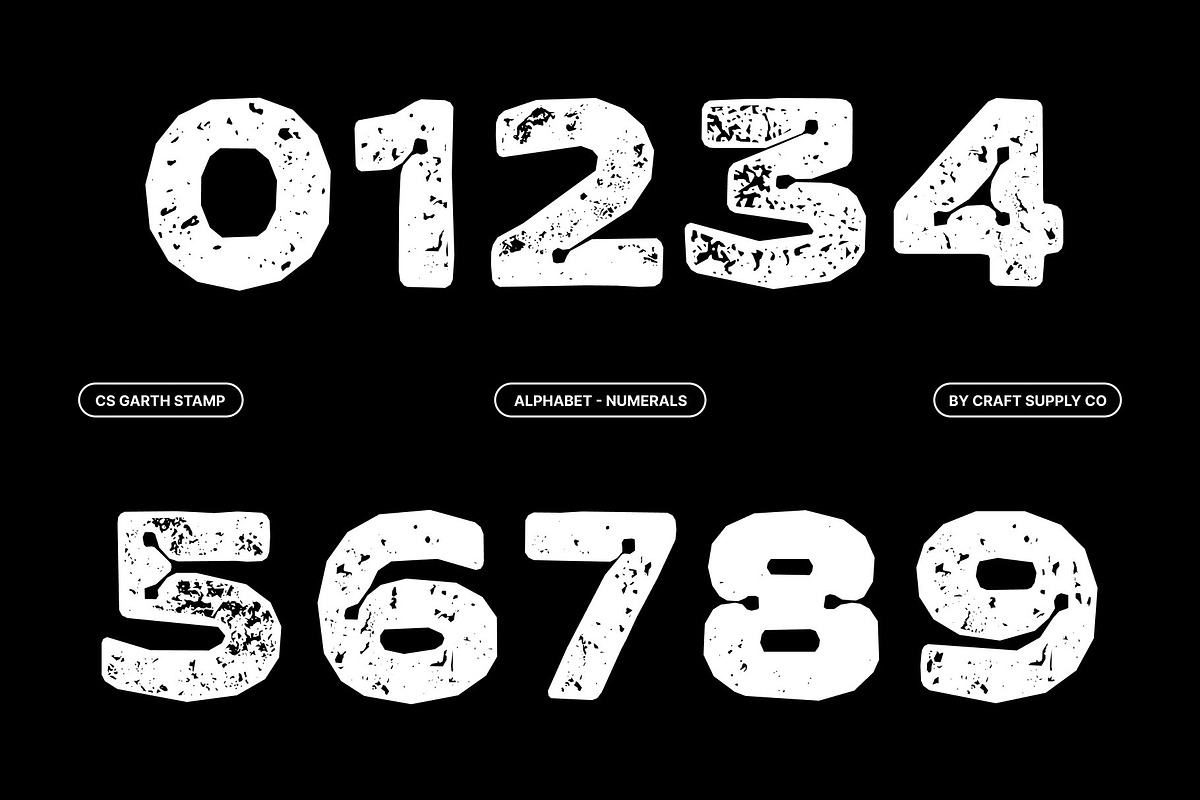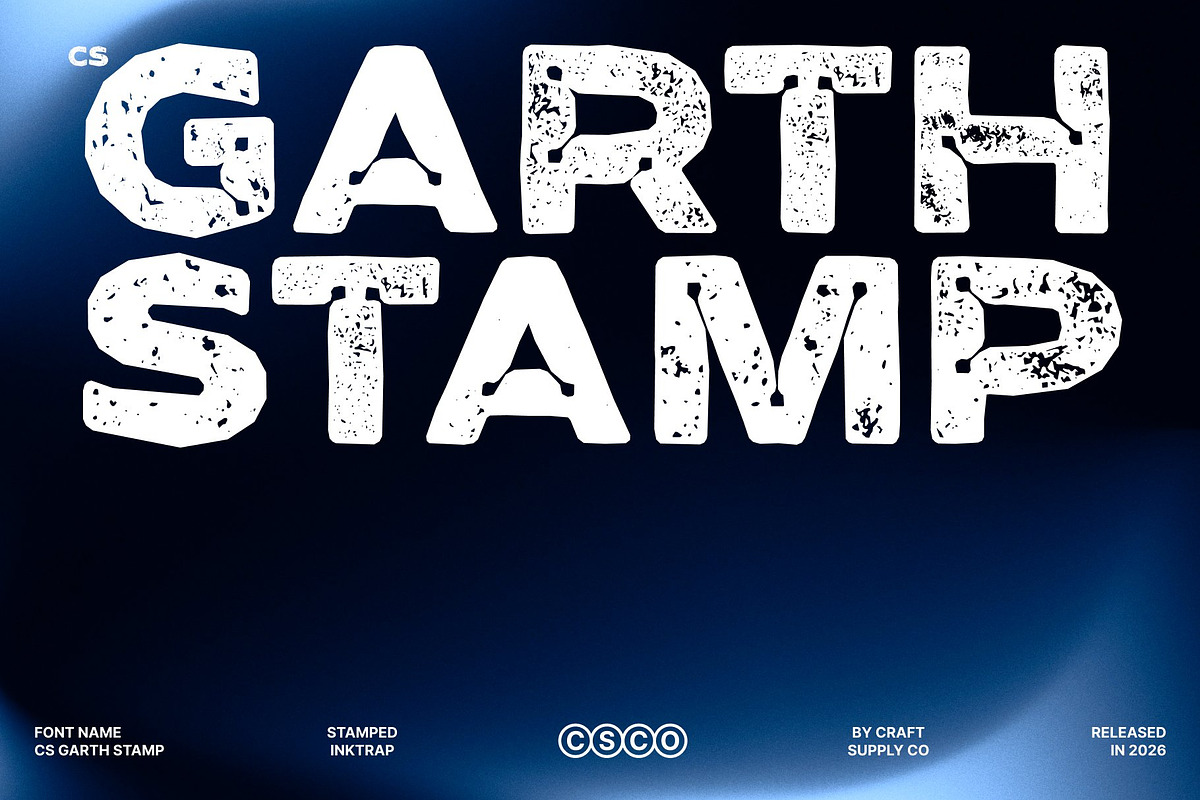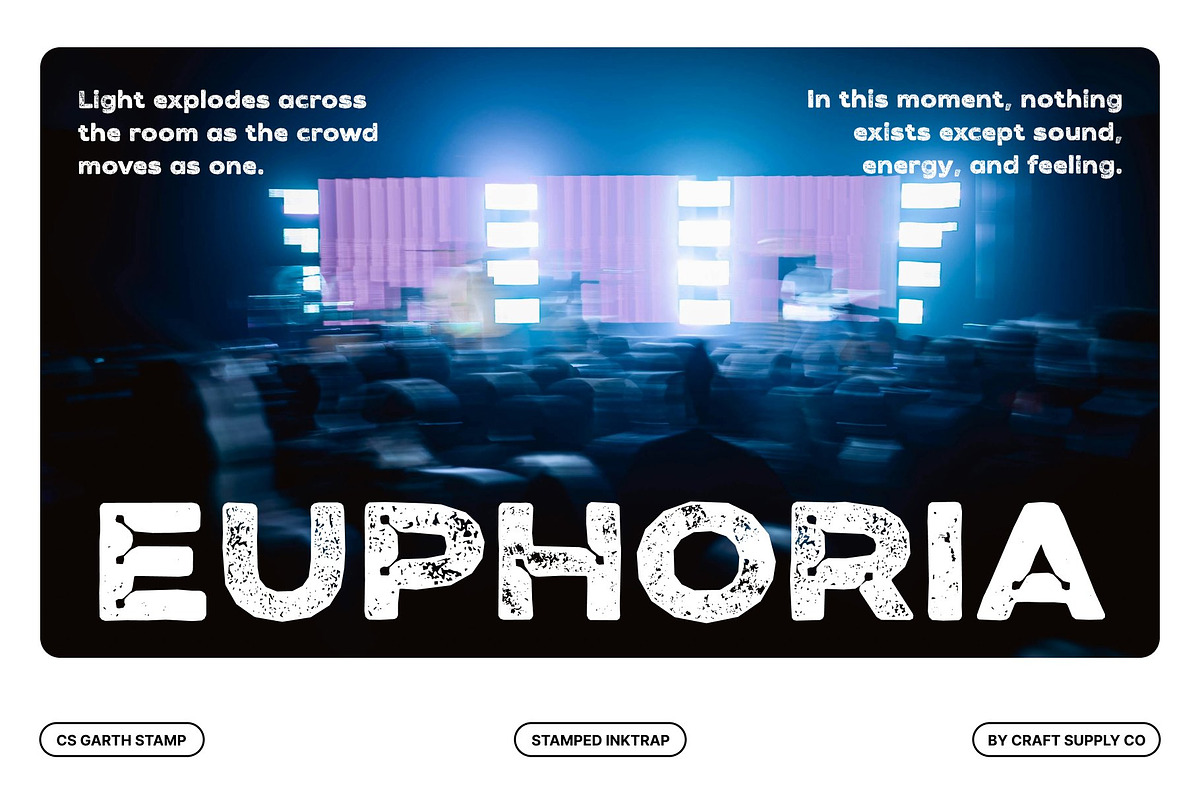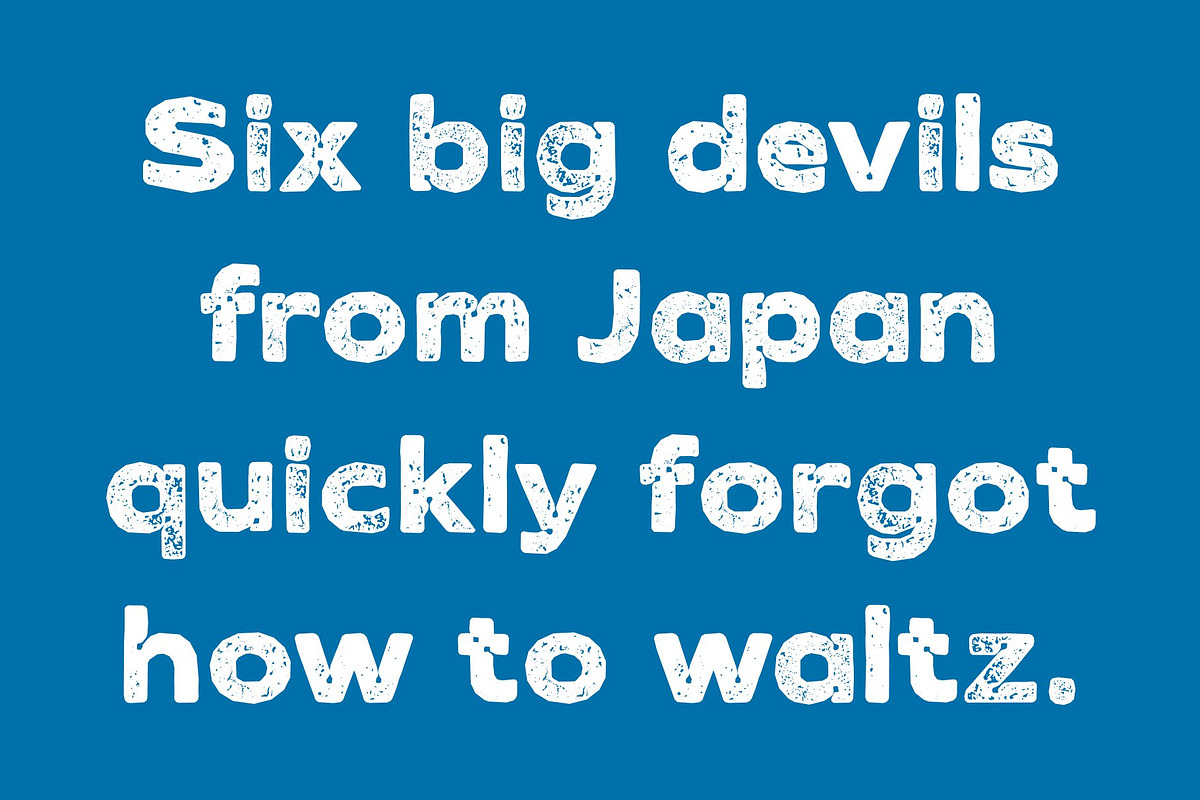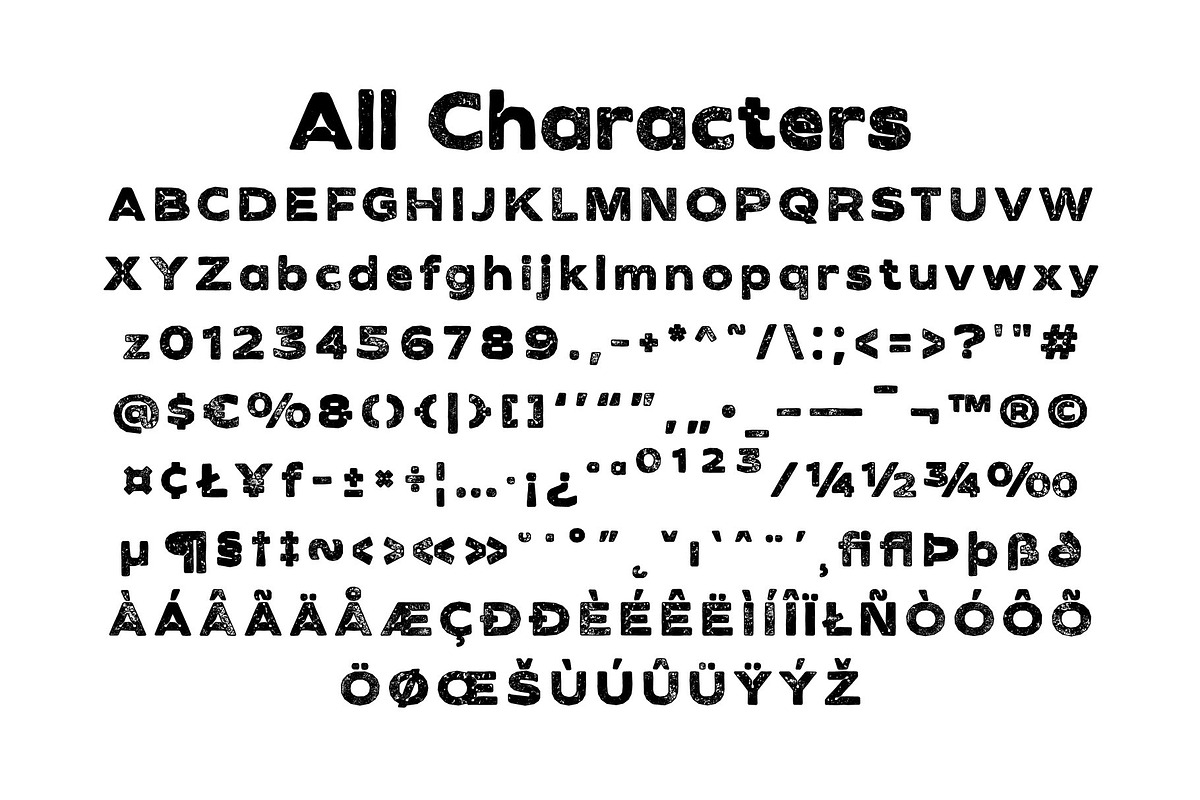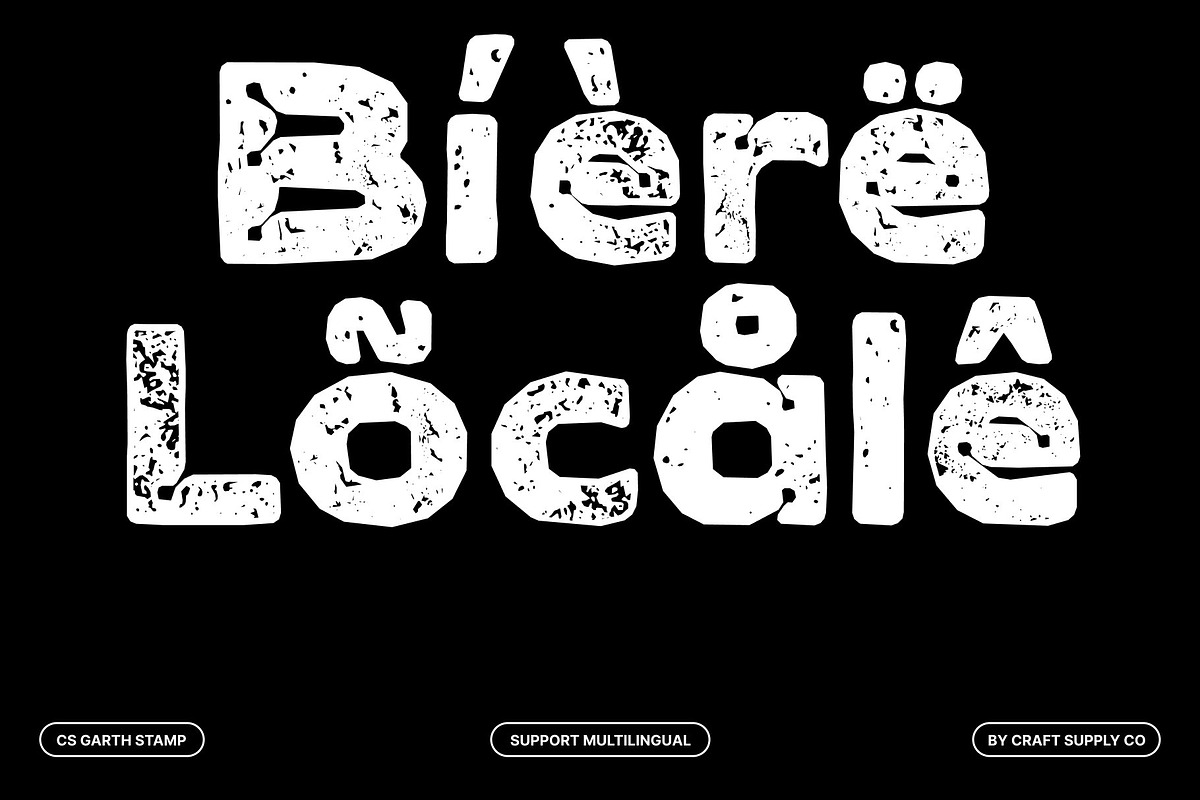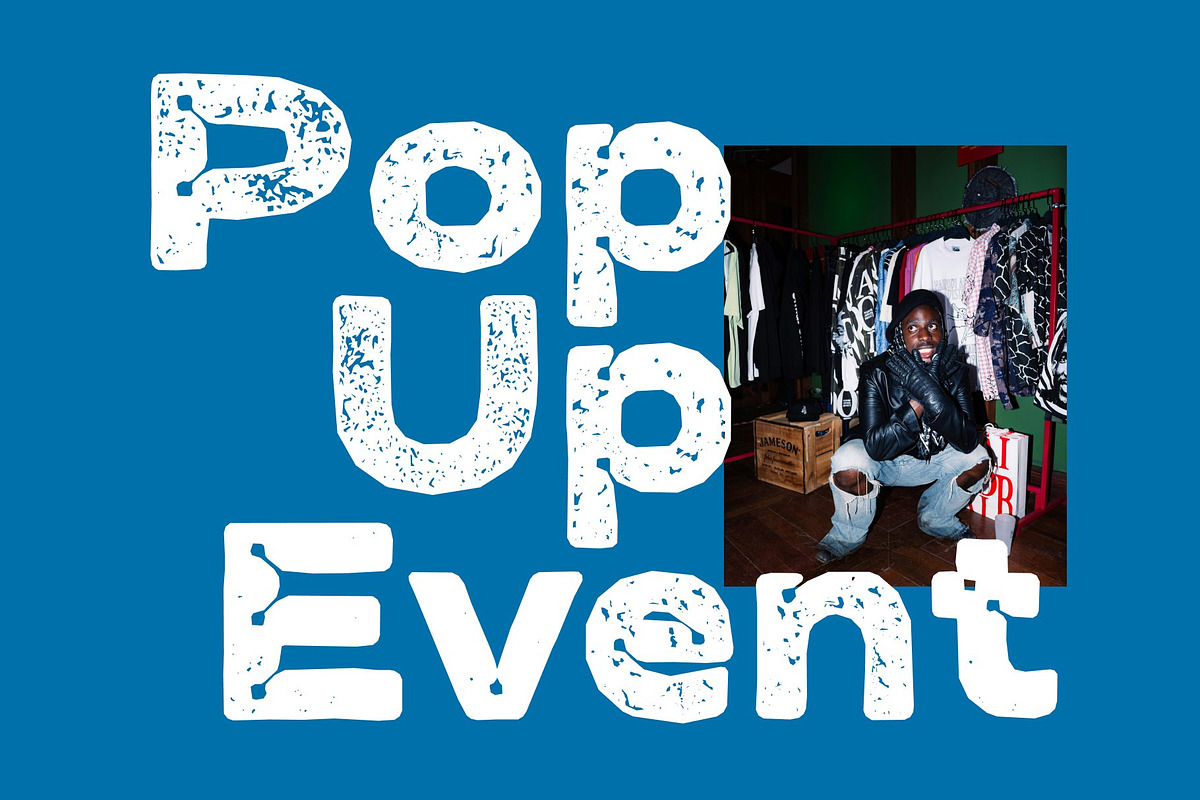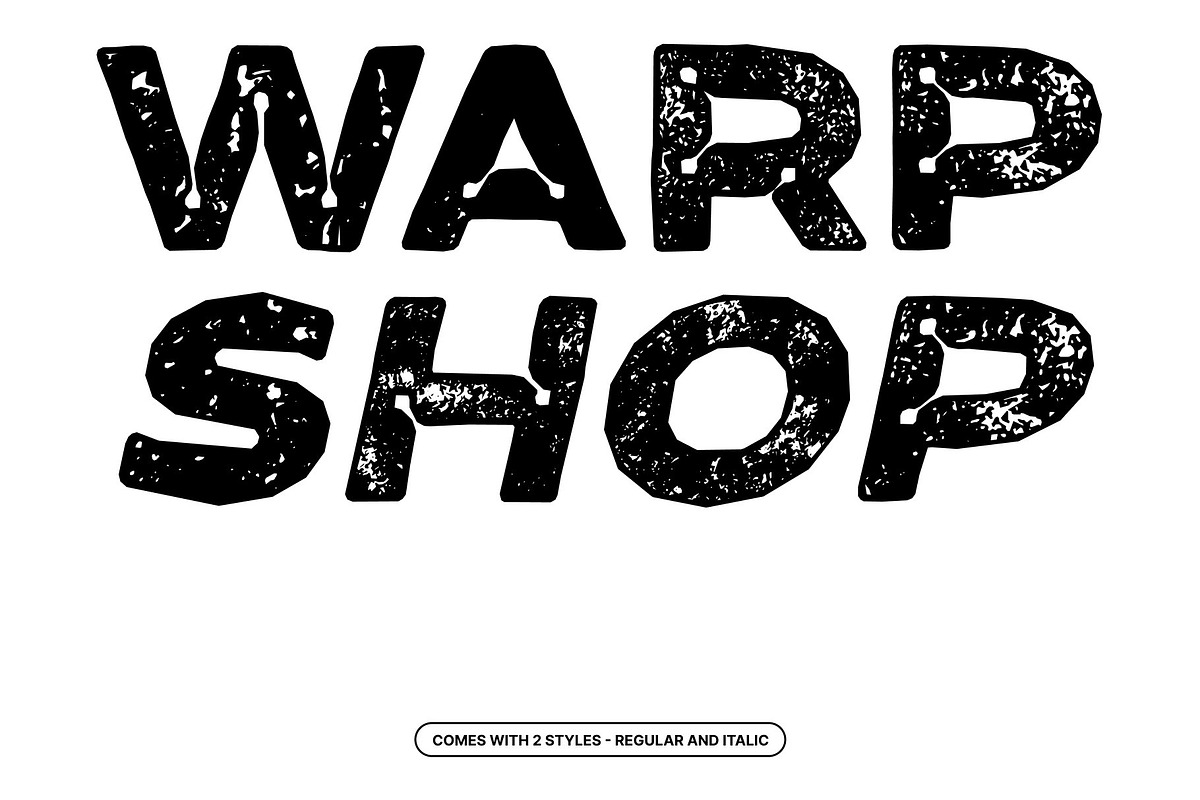
CS Garth Stamp
CS Garth Stamp – Inktrap Font: A Fusion of Modernity and Timeless Texture
Modern Inktrap Sans Serif with a Distressed Stamp Aesthetic This font is a sophisticated evolution of the modern sans-serif, blending the precision of contemporary “inktrap” architecture with the rugged soul of a vintage stamp. This font is designed for creators who need a typeface that feels both architecturally sound and artistically weathered, offering a unique dimension to any visual project.
Precision Meets Purpose with Inktrap Details At its core, features sharp, functional inktrap details that add an unexpected depth to its clean sans-serif skeleton. Originally a technical necessity for small-scale printing, these deep notches are reimagined here as a bold stylistic choice, providing a sense of modern edge and structural character that ensures the font stands out in high-contrast environments.
Artistic Texture with an Authentic Stamp Effect The defining characteristic of this version is its meticulously crafted stamp effect, which introduces a rich, artistic texture to every letterform. By simulating the organic imperfections of a physical ink press, the font gains a tactile quality that feels handcrafted. This gritty, distressed finish breaks away from digital sterility, giving your text a soulful, “ink-on-paper” presence.
Vintage Character for a Nostalgic Design Aesthetic The combination of modern geometry and weathered textures imbues this font with a distinct vintage character. It evokes the nostalgia of traditional letterpress printing and old-world design, making it the perfect tool for projects that require a “neo-vintage” look.
CS Garth Stamp Regular
CS Garth Stamp Italic